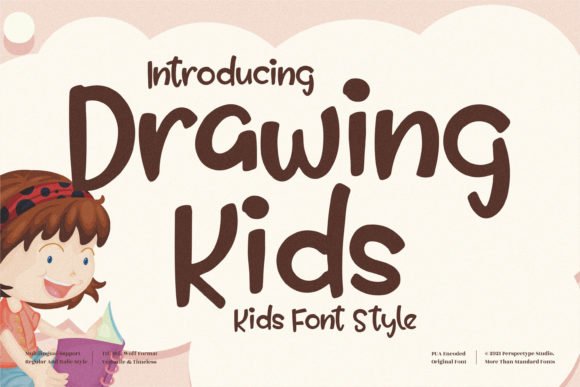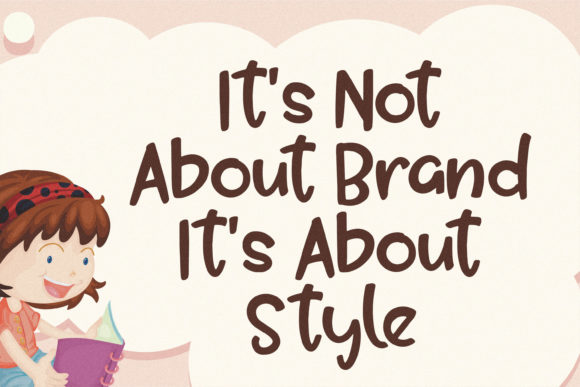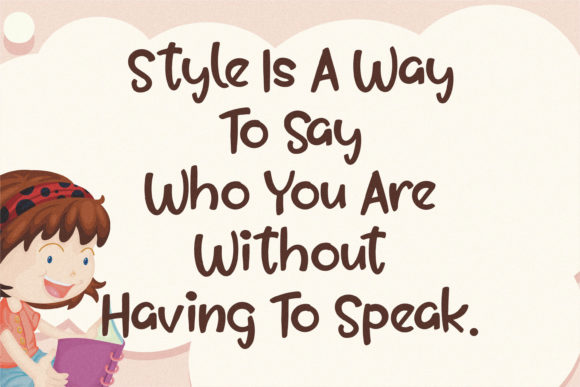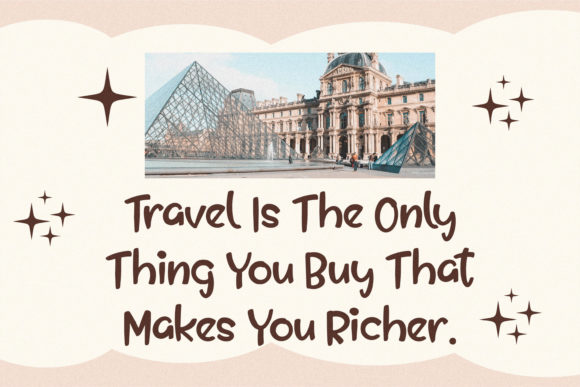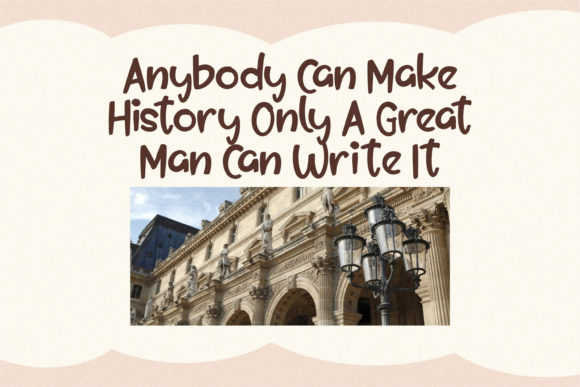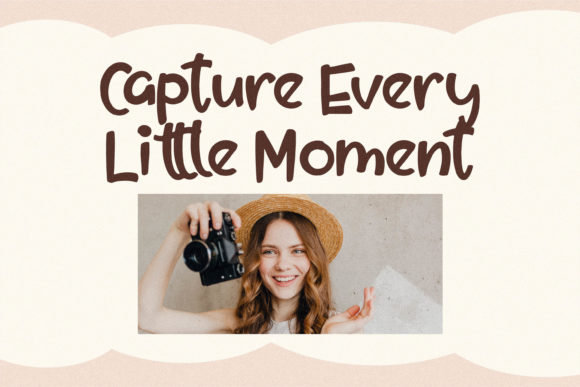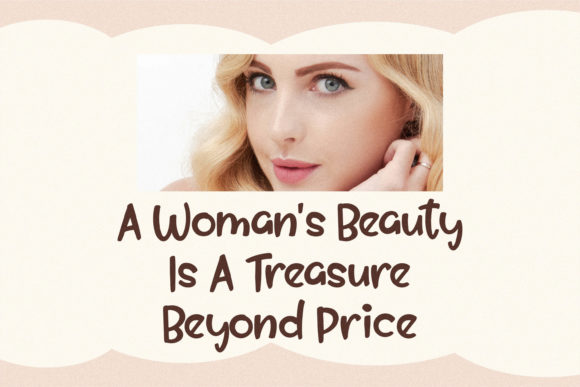
Bring Childhood Magic to Your Designs with Drawing Kids Font
Do you remember the joy of scribbling with crayons on a fresh notebook page, or the thrill of creating a masterpiece with finger paints? Those carefree moments of childhood creativity are what inspired the designers behind Drawing Kids Font – a charming display font that’s perfect for bringing a playful touch to your projects.
This delightful font is designed to capture the essence of childhood wonder, making it an ideal match for kids’ educational materials, nursery decor, and family-focused branding. Whether you’re a designer working on a children’s book, a teacher creating engaging lesson plans, or a parent looking for a unique way to express your love for your little ones, Drawing Kids Font is sure to make your designs stand out.
Drawing Kids Font Key Features
- Unique Characteristics: Drawing Kids Font features a playful and whimsical design, with bold lines, rounded shapes, and a mix of uppercase and lowercase letters that make it perfect for children’s books, educational materials, and creative projects.
Design Review: Drawing Kids Font
Overall, the Drawing Kids Font is a delightful addition to any digital designer’s toolkit. Its playful, hand-drawn style immediately captures the imagination and is sure to spark creativity in children (and adults alike!). ✨
Strengths:
- The font’s whimsical nature makes it perfect for titles, headings, and any design element where you want to add a touch of fun.
- The high level of customization allows designers to adjust the font’s color, size, and spacing to suit their specific project needs.
- The font’s bold, childlike feel is especially well-suited for educational materials, children’s books, and websites targeting young audiences.
While the Drawing Kids Font is a great addition to any designer’s toolkit, there are a few limitations to be aware of. ⚠️
- The font’s overall aesthetic may be too childlike for more mature or professional projects.
- The high level of customization can also make the font feel a bit inconsistent or uneven in certain applications.
In conclusion, the Drawing Kids Font is a solid choice for designers working on projects that require a playful, childlike feel. While it may not be suitable for every project, it’s a great option for educational materials, children’s books, and websites targeting young audiences.
Getting the Most Out of Drawing Kids Font
To get the most out of Drawing Kids Font, consider the following tips:
– Use it for children’s educational materials, such as worksheets and coloring books.
– Pair it with bold or italic fonts for emphasis.
– Experiment with different font sizes and colors to create visual interest.
Common use cases for Drawing Kids Font include:
– Children’s book illustrations
– Educational materials
– Party invitations and decorations
– Kid-friendly websites and apps
Alternatives to Drawing Kids Font for Designers
Comic Sans MS is a popular font known for its playful and informal style. It is suitable for use in casual and creative contexts, such as advertising, children’s materials, and social media. While it has a similar feel to Drawing Kids Font, it is more polished and widely available on most devices.
Comparison: Comic Sans MS is more versatile and widely recognized than Drawing Kids Font, but lacks the same level of whimsy and charm.